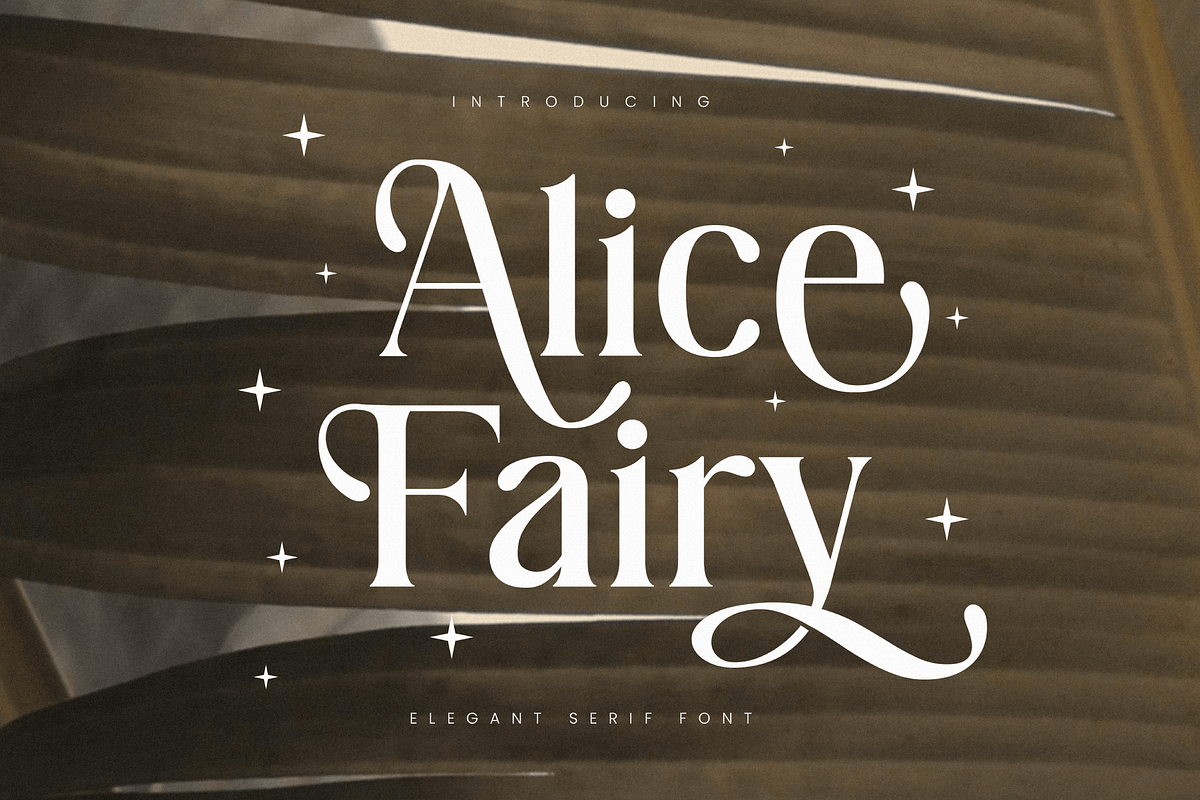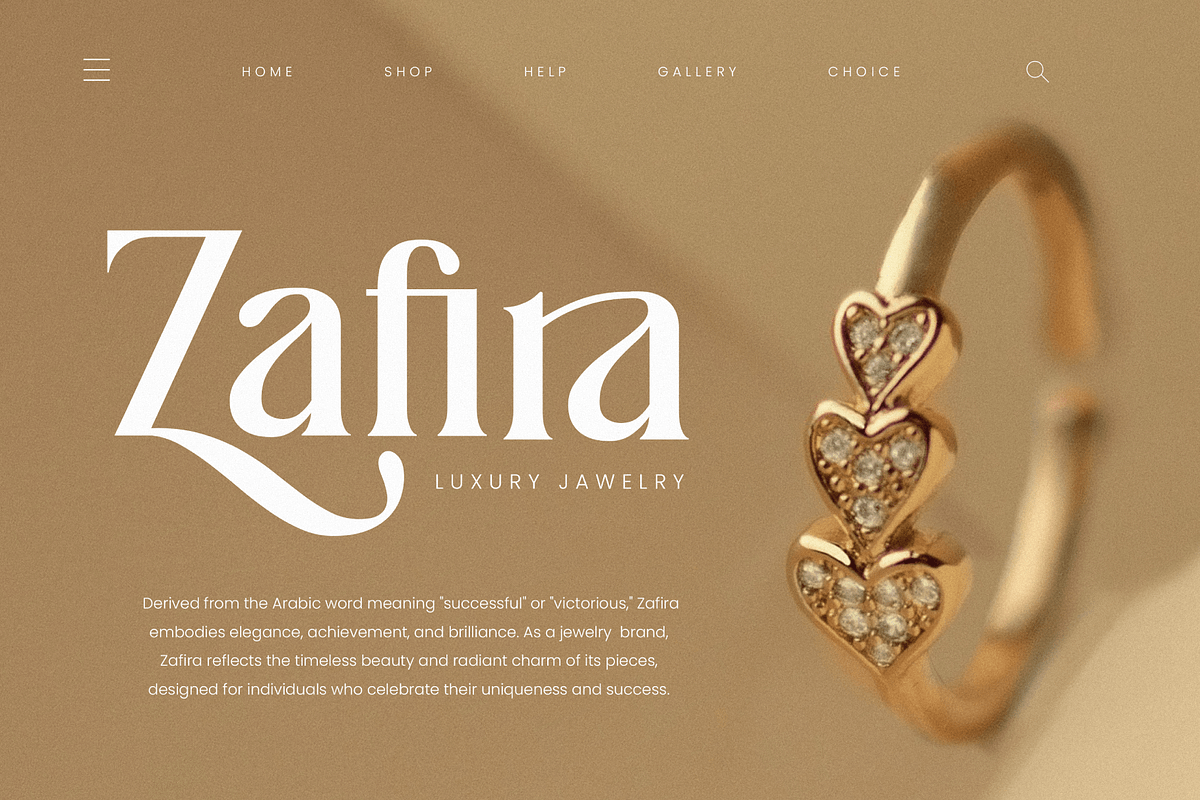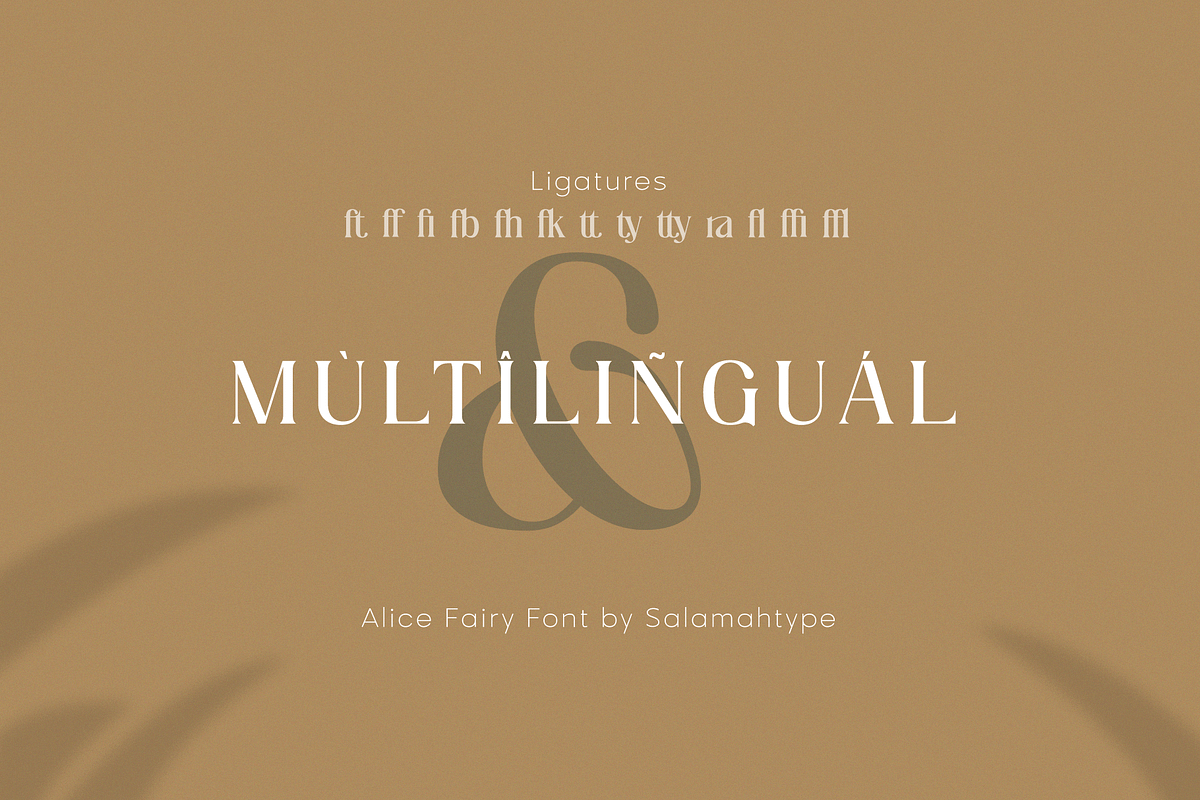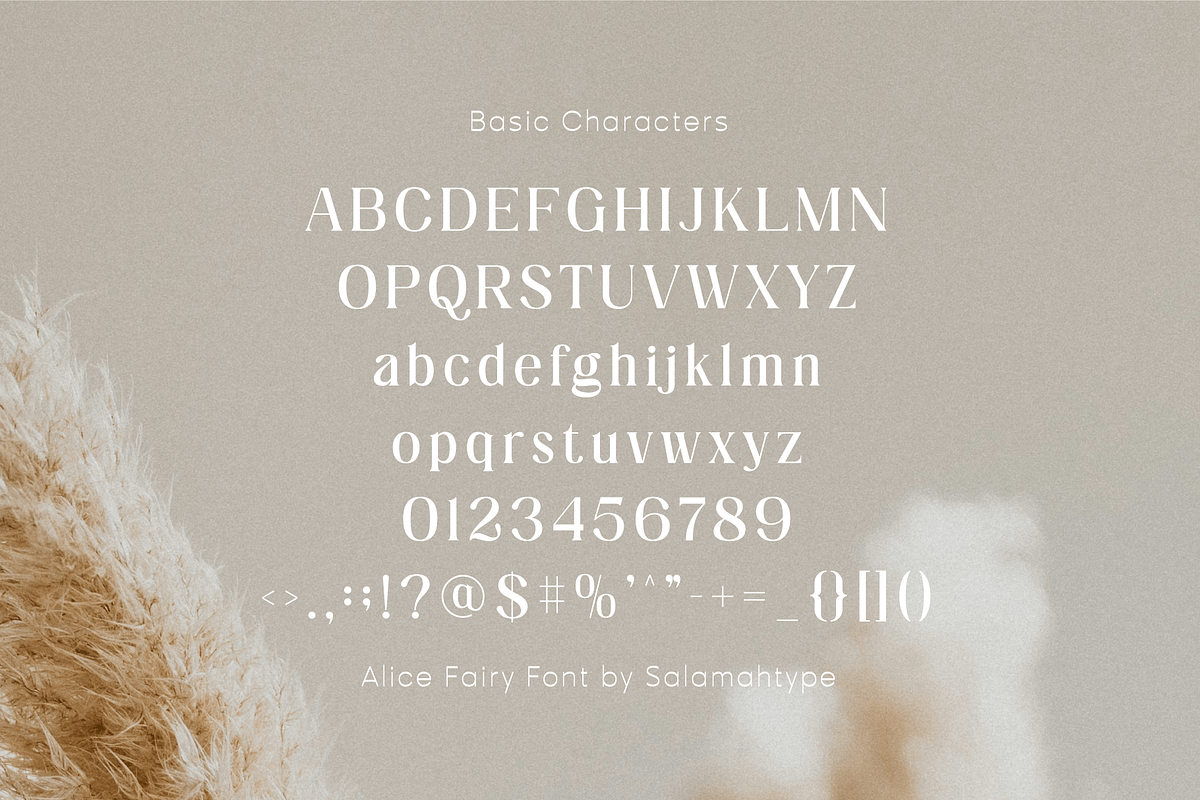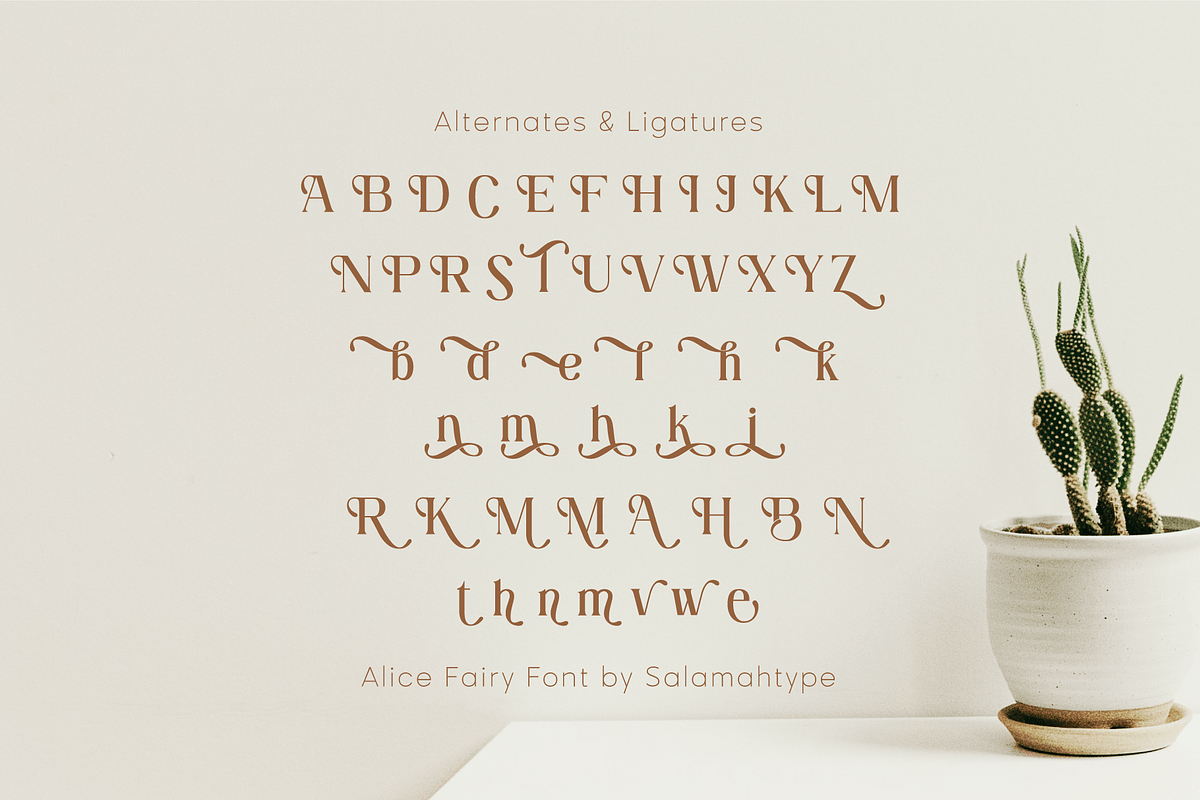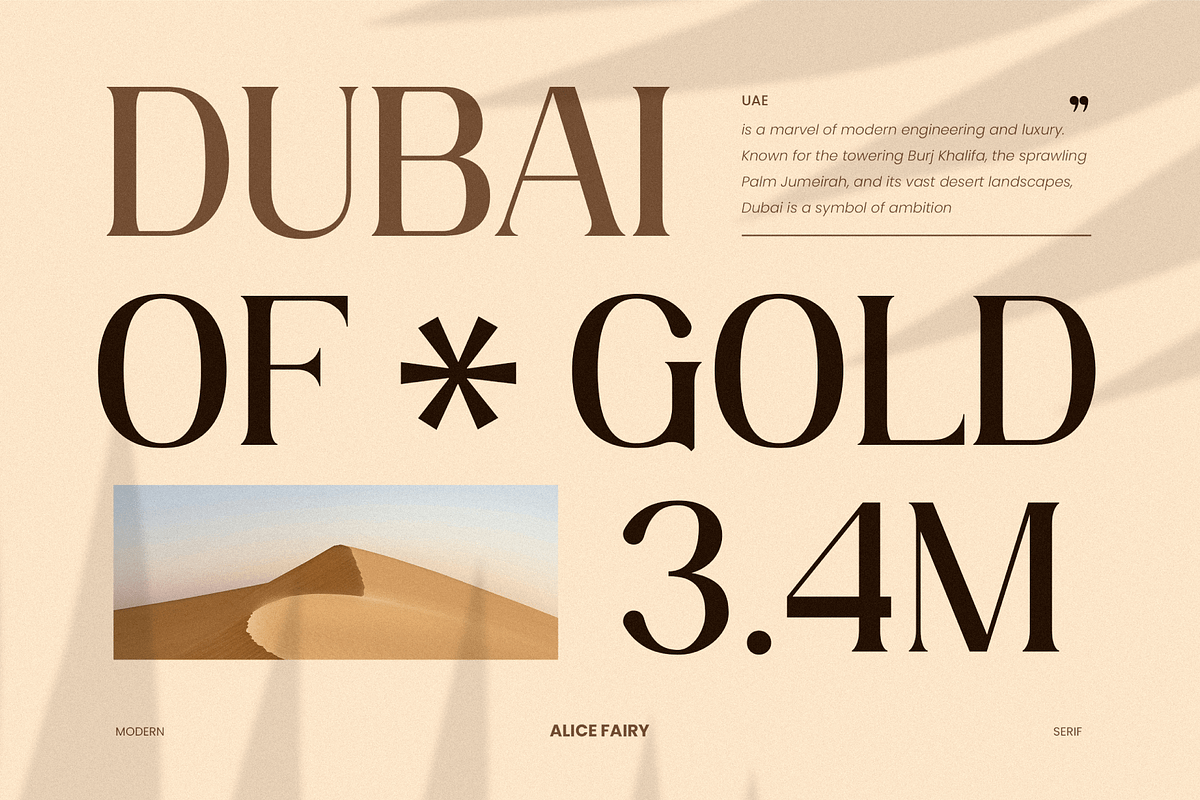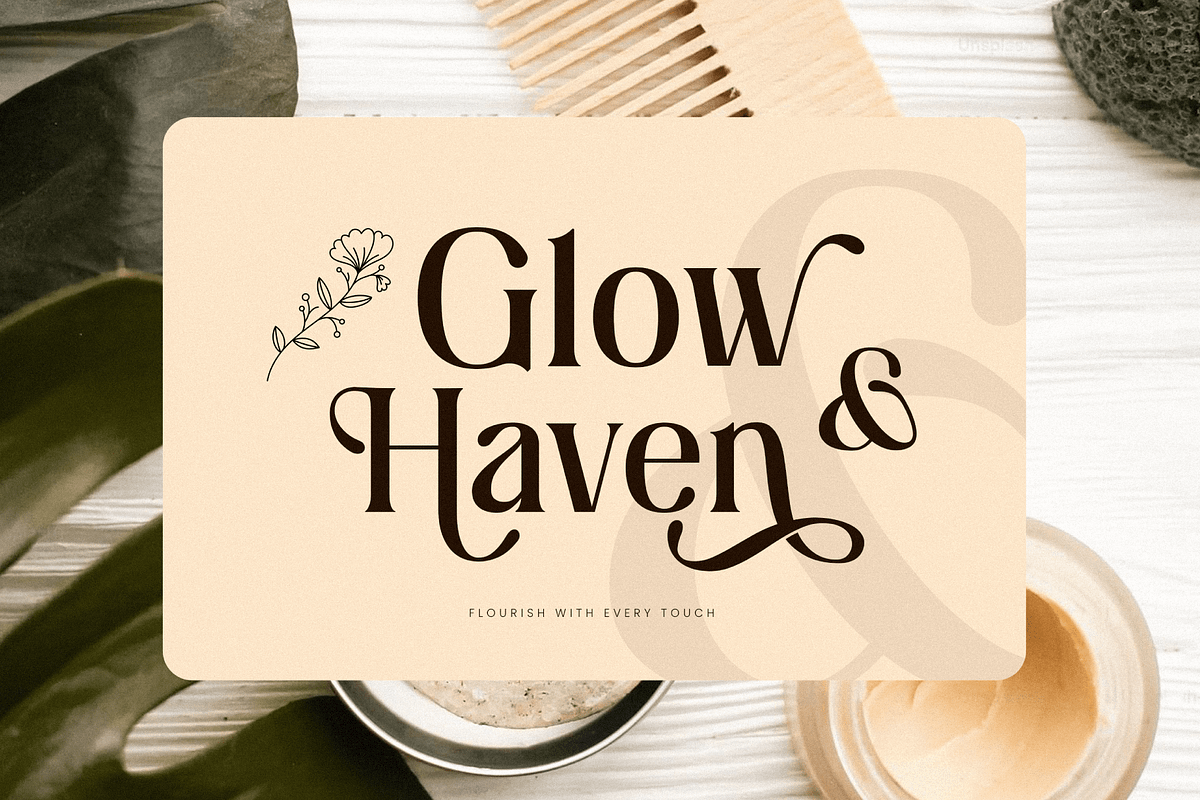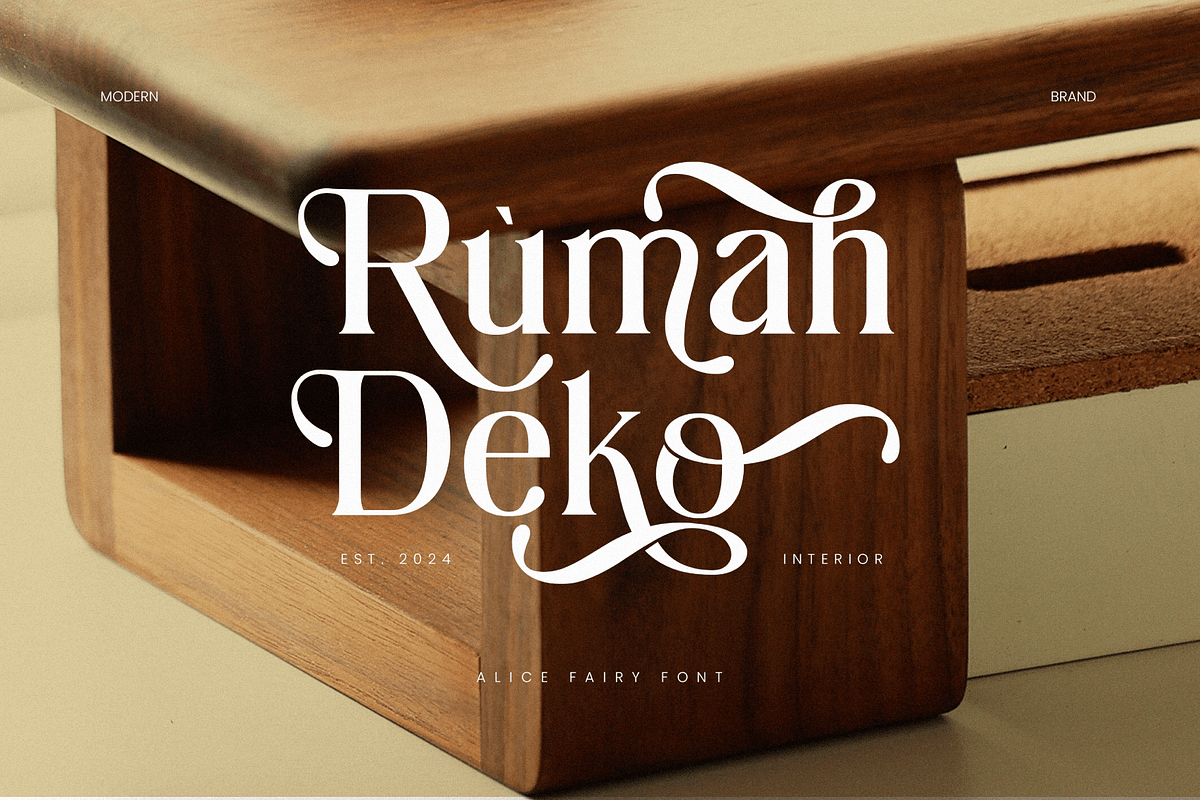
Alice Fairy - Beautiful Font
Alice Fairy is a classy and versatile font that’s perfect for adding a touch of elegance to your designs. With its beautiful alternates and decorative tails, it works great for logos, websites, wedding invites, and more. Whether you’re going for a romantic vibe or something professional, this font has you covered. Plus, it’s easy to use and includes multilingual support, making it a great fit for all kinds of projects.
- Uppercase Lowercase
- Symbols and Punctuation